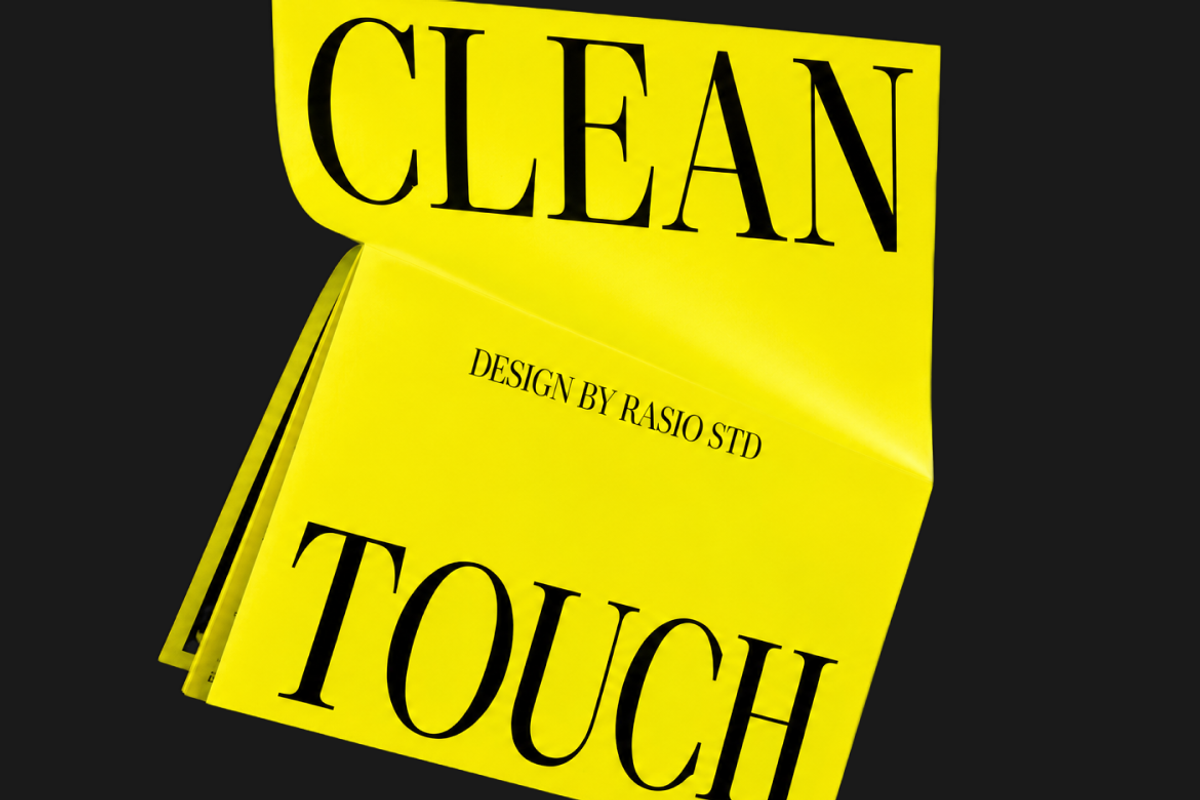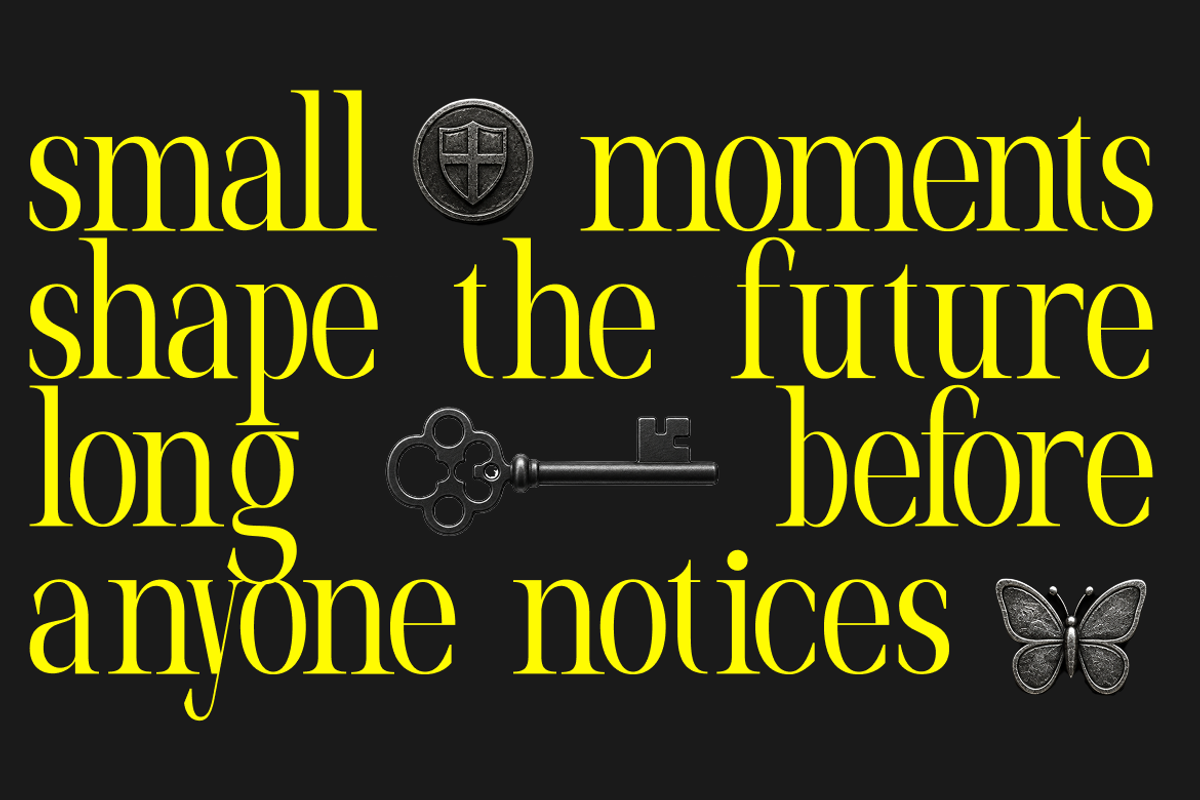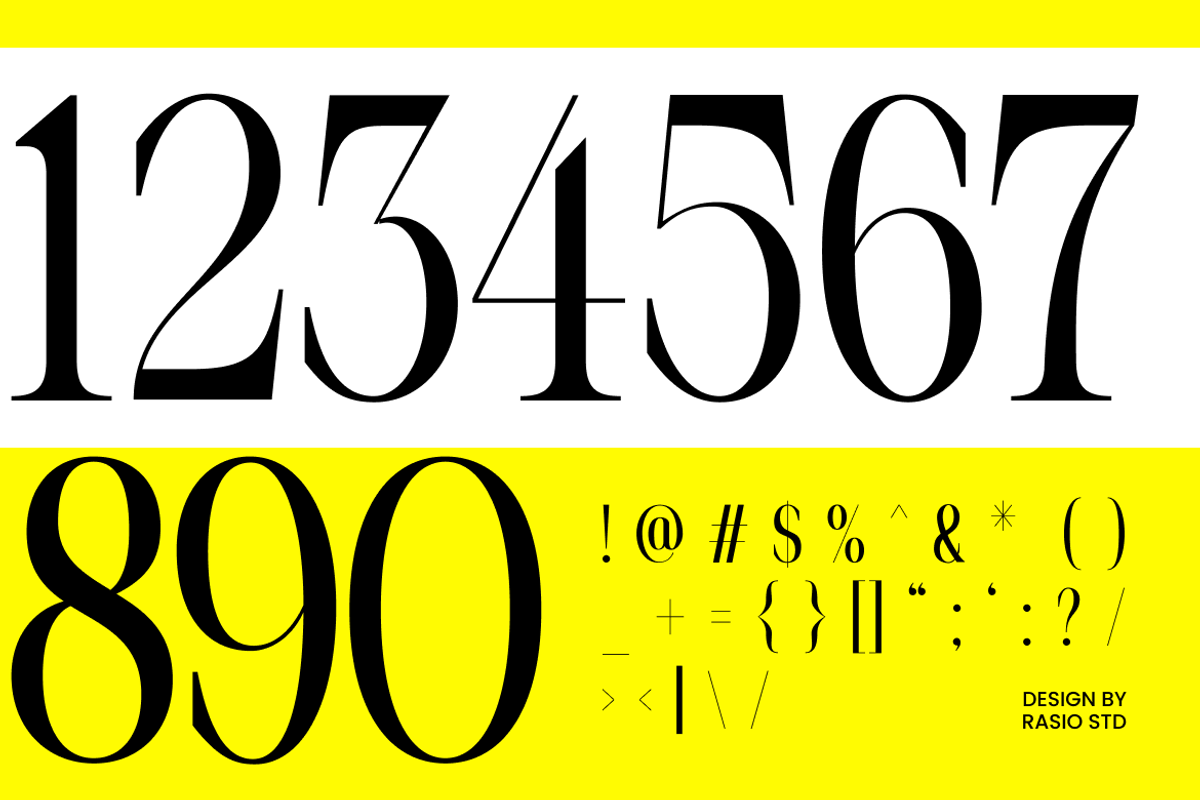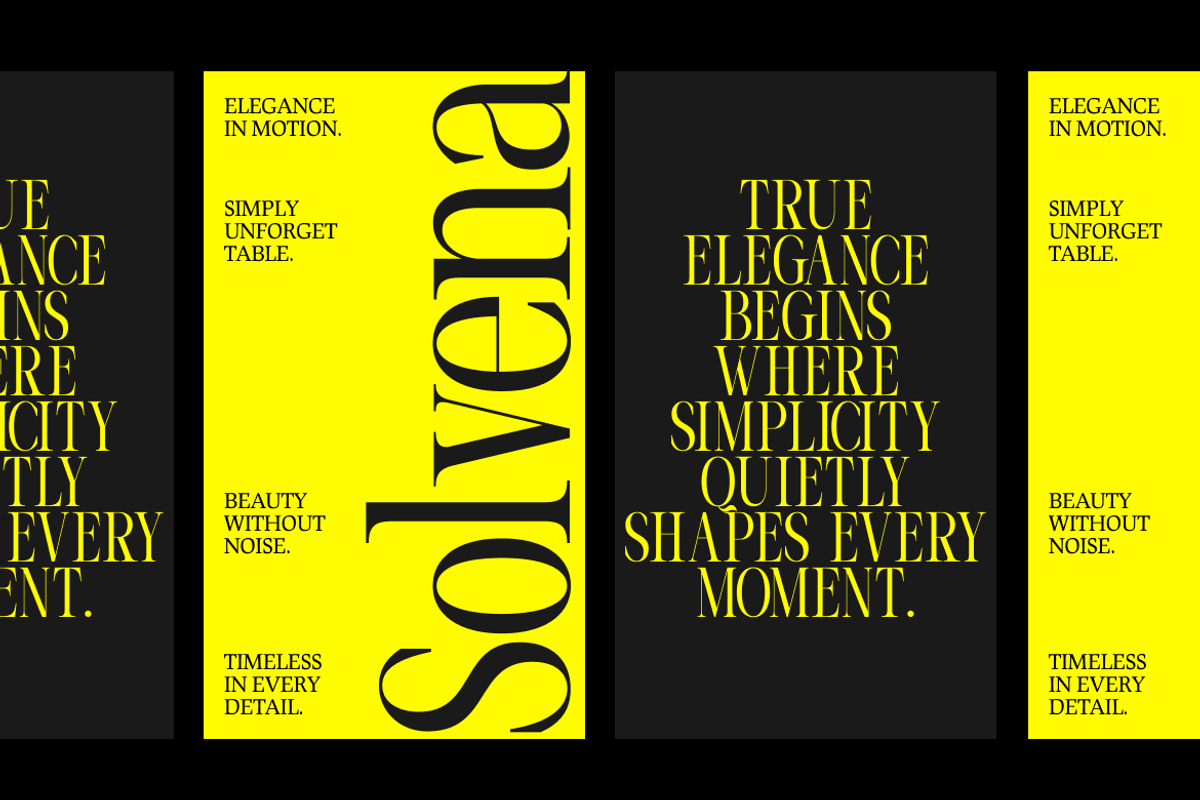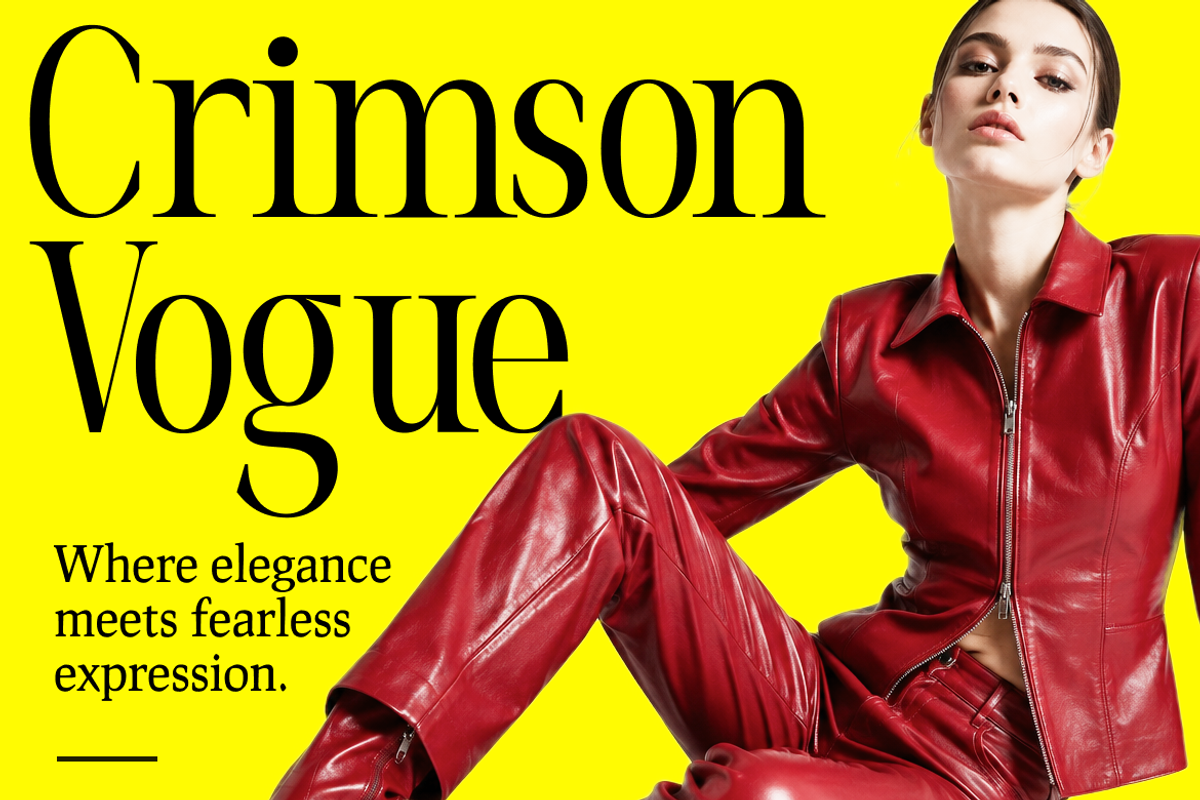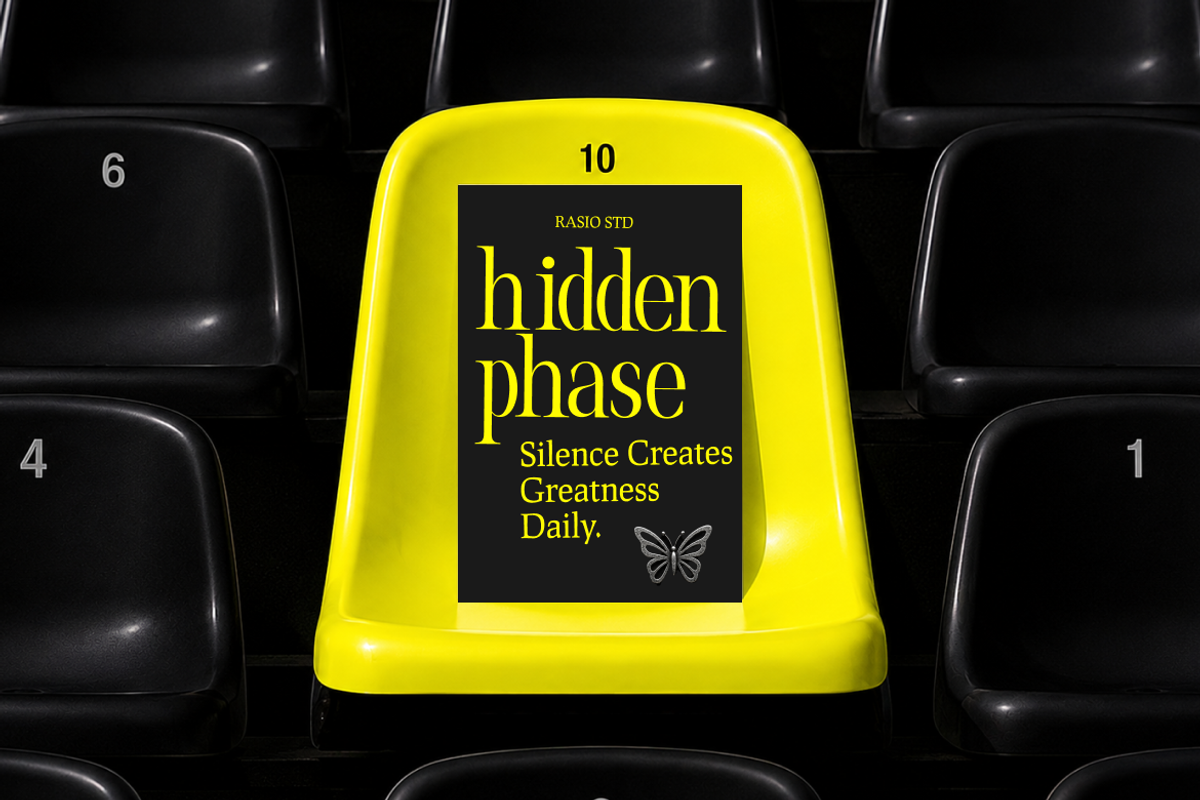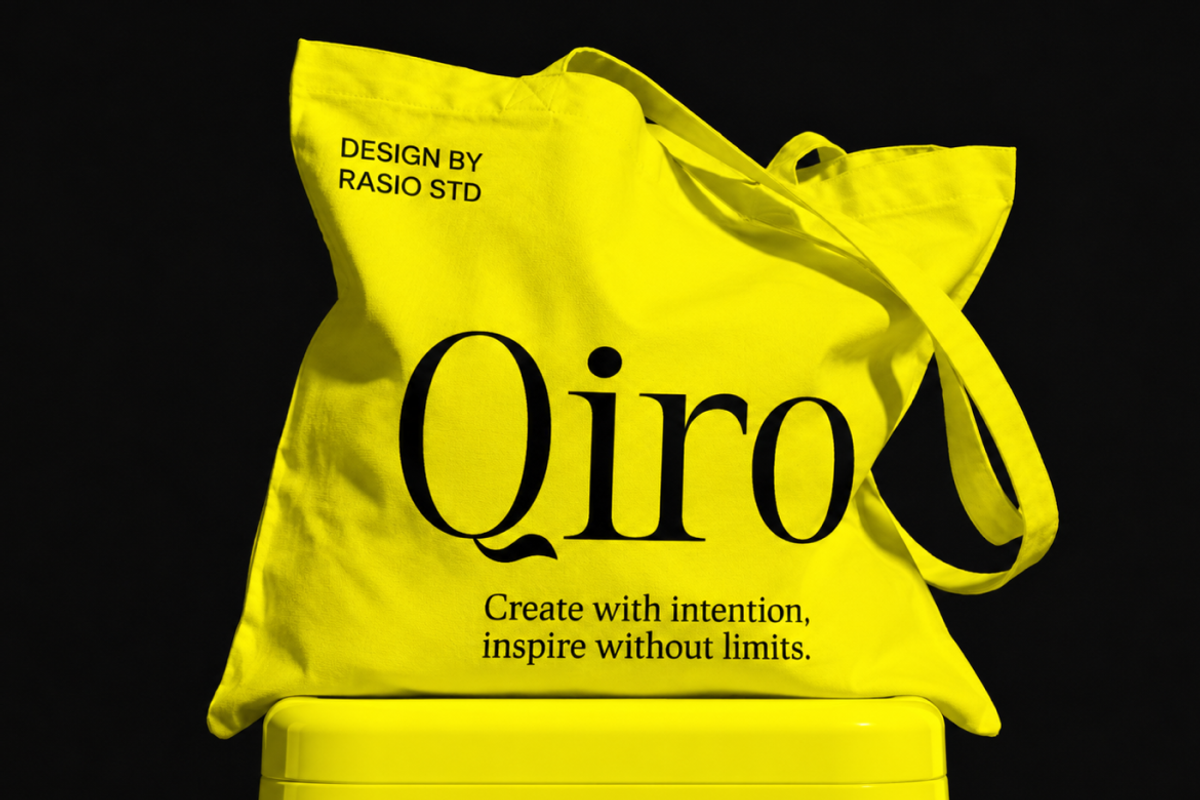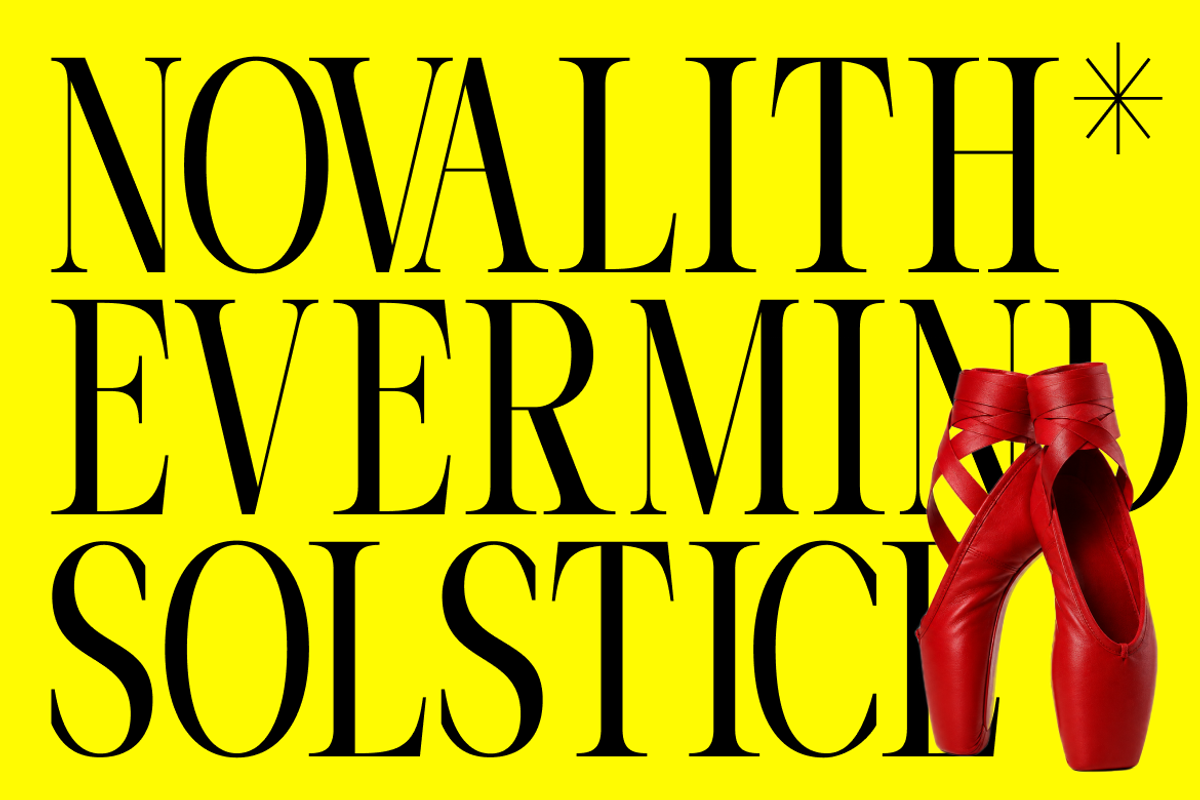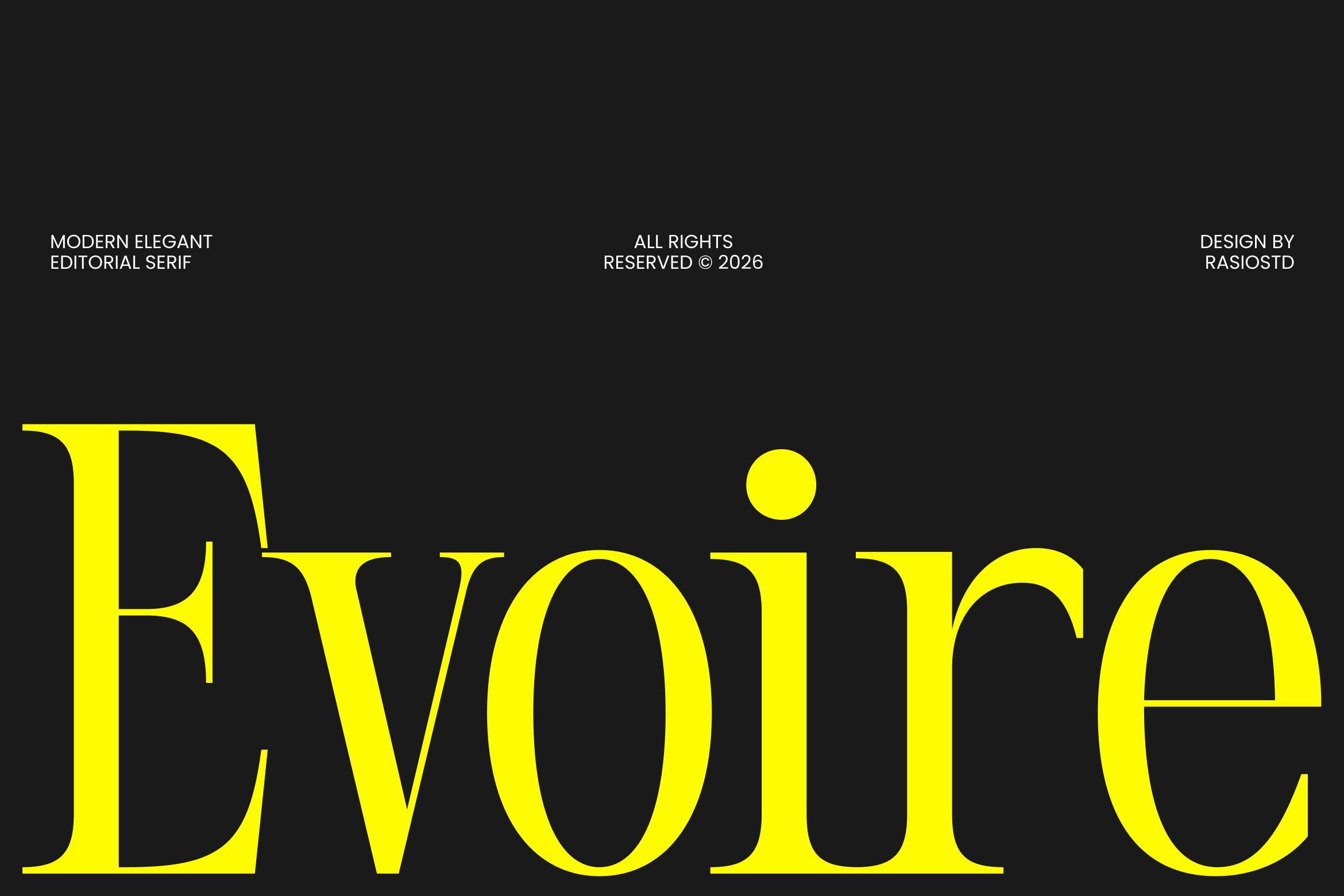
Evoire Modern Editorial Serif Font
Evoire Modern Editorial Serif Font is a contemporary editorial serif designed to deliver striking visual impact through refined proportions, dramatic contrast, and confidently sculpted letterforms. The typeface balances crisp geometric precision with graceful curves, producing a sophisticated rhythm that feels equally at home in luxury branding and high-fashion publications. Its distinctive terminals, elegant stroke transitions, and carefully crafted spacing create bold headlines with a polished, timeless presence.
Evoire works exceptionally well in magazine covers, fashion campaigns, cosmetic packaging, perfume labels, boutique branding, restaurant identities, book covers, luxury invitations, certificates, product packaging, and social media content where typography becomes the primary visual element. Whether paired with monochromatic palettes, bold photography, or minimalist layouts, Evoire brings elegance, structure, and sophistication to both print and digital design projects.
Elegant editorial serif with refined high-contrast strokes
Elongated proportions for graceful and sophisticated headlines
Sharp serif details with smooth, balanced stroke transitions
Carefully tuned spacing for premium display typography
Distinctive ligatures and alternates for custom lettering
Luxury branding and sophisticated visual identity projects
Editorial magazines, fashion lookbooks, and premium publications
Beauty, jewelry, perfume, and cosmetic packaging design
Elegant logos, boutique branding, and signature wordmarks
Wedding stationery, invitations, and upscale event materials
Supports numerals, punctuation, and extensive symbol set